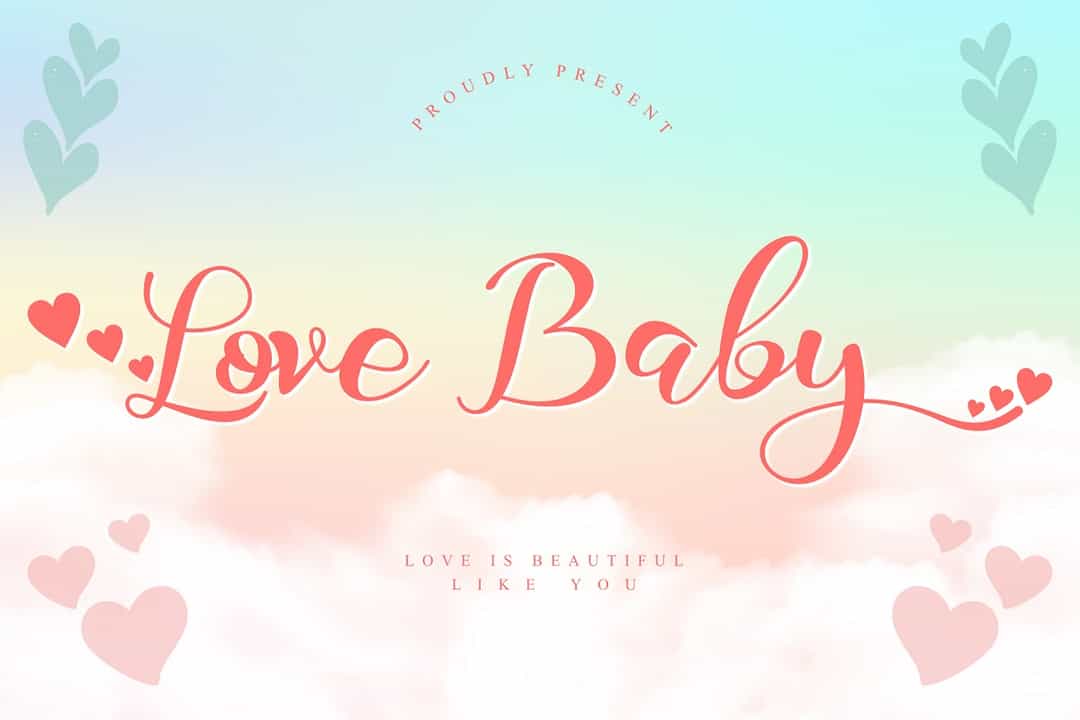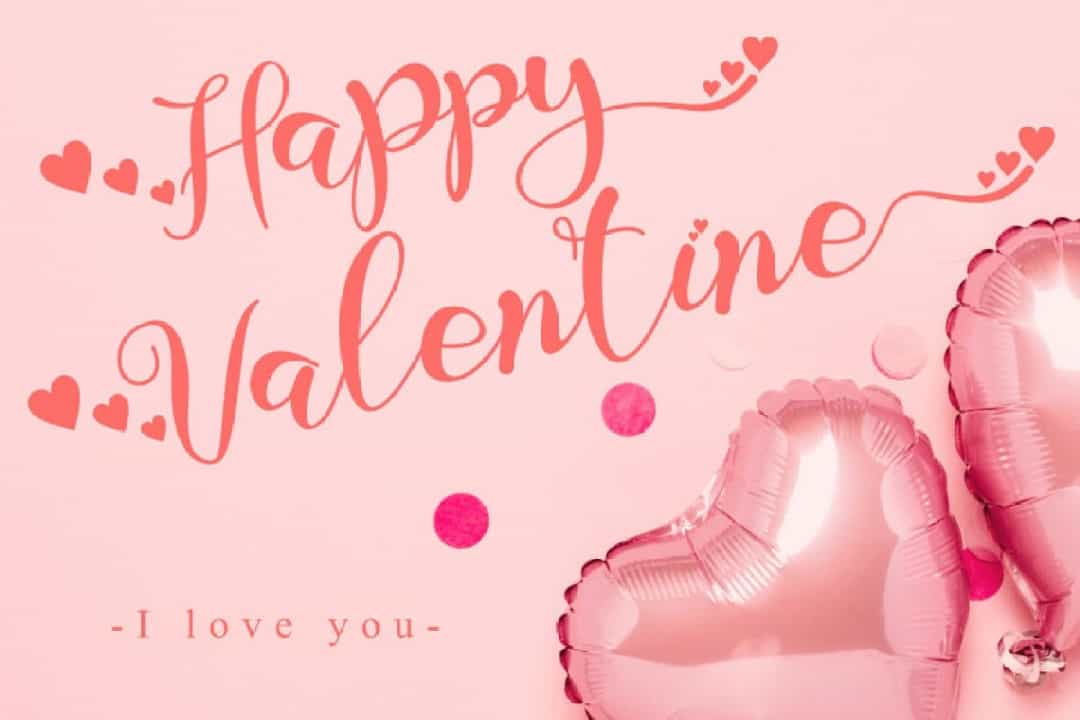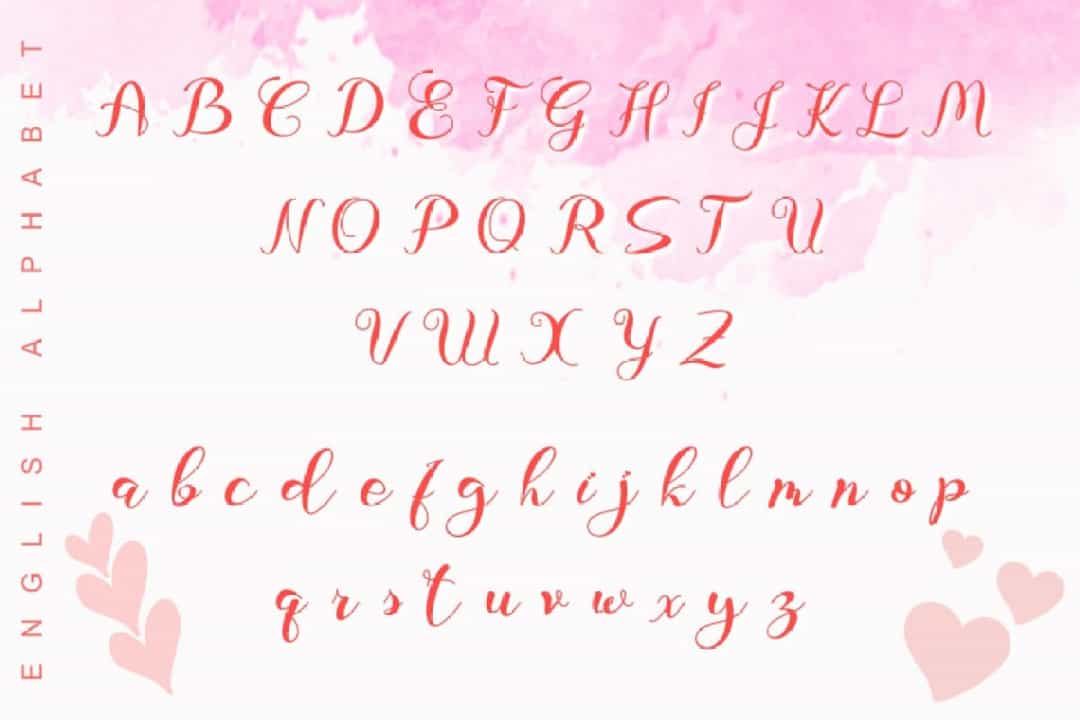
Discover Love Baby Font, part of the Calligraphy collection—a versatile and unique font perfect for adding a personal touch to your projects. Download it for free and enjoy crafting designs with style, from invitations to social media posts. This font is available exclusively for personal use, giving you the freedom to create without limits. Unlock your creativity with Love Baby Font today!
Love Baby is an elegant script font which is best suitable for branding, invitations, stationery and wedding design, ads, social media posts, packaging, product designs, labels, watermarks, photography, any special occasions or any special event.